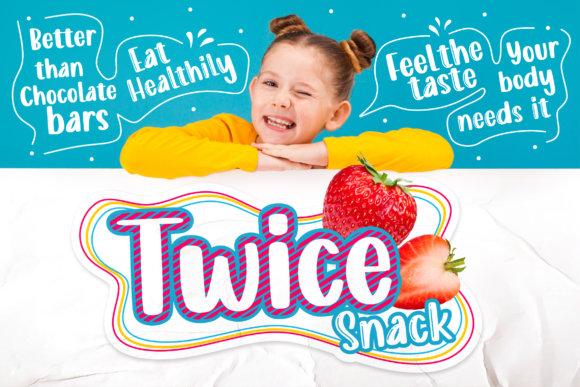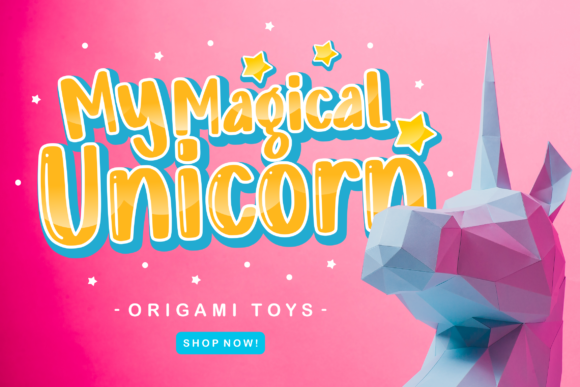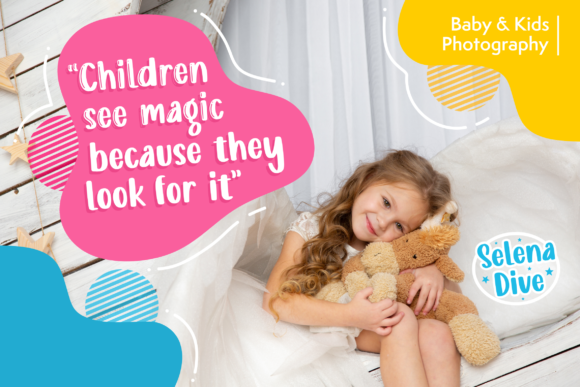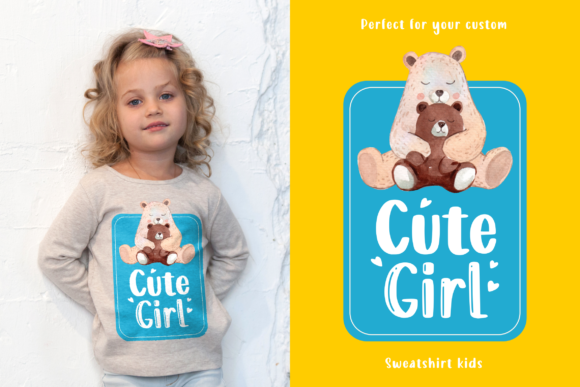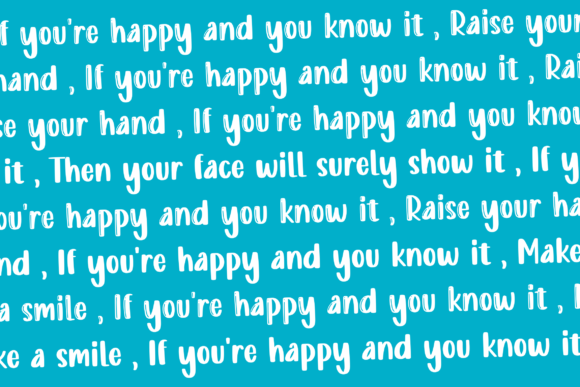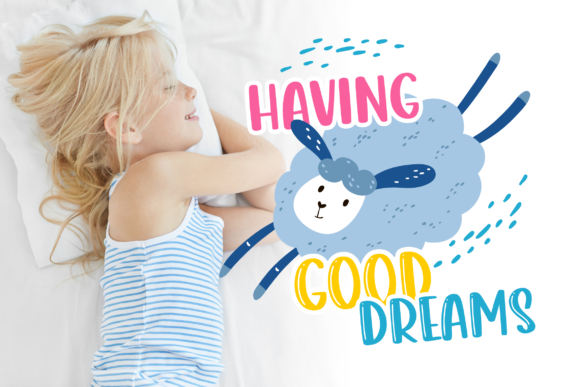
Introduction to Little Comet Font
Remember that moment when you stumbled upon the perfect design element that elevated your creative project to the next level? For many designers, it’s a moment of pure joy and excitement. I had one of those moments when I discovered the Little Comet Font, a unique and cute display font that’s perfect for adding a touch of whimsy to your designs.
Whether you’re working on a cartoon-related design, a children’s game, or a book cover, the Little Comet Font is an excellent choice. Its high-quality design makes it a valuable resource for designers who want to create visually appealing and engaging content. With its transparent background, this font is easy to use and customize, making it a great asset for any creative project. And the best part? It’s available for free download, making it an accessible design resource for designers of all levels.
- High-quality, hand-drawn design perfect for creative projects requiring a unique touch.
- Transparent background option allows for seamless integration with various design elements.
- Unique characteristics include whimsical illustrations and a playful, childlike feel, making it ideal for children’s books, educational materials, and other creative projects.
I recently stumbled upon the Little Comet Font while searching for a high-quality design resource for a creative project. I was drawn to its unique and quirky style, which I thought would add a fun touch to my design.
- ✨ Unique and playful style that’s perfect for creative projects
- ✨ Offers a transparent background option, making it easy to layer over other design elements
However, I did encounter a few limitations while working with the font.
- ⚠️ Limited character set, which can make it difficult to use for longer blocks of text
Overall, I was impressed with the Little Comet Font’s unique style and ease of use. While it has some limitations, I think it’s a great resource for designers who are looking for a fun and quirky font for their creative projects.
Use the Little Comet Font for titles, headings, or body text to add a touch of elegance to your design. Experiment with different font sizes and colors to create a visually appealing effect. You can also pair the Little Comet Font with other fonts to achieve a unique design style.
The Little Comet Font is ideal for creative projects, such as brochures, posters, social media graphics, and business cards. Its high-quality design makes it perfect for professional and personal use, ensuring your work stands out from the crowd.